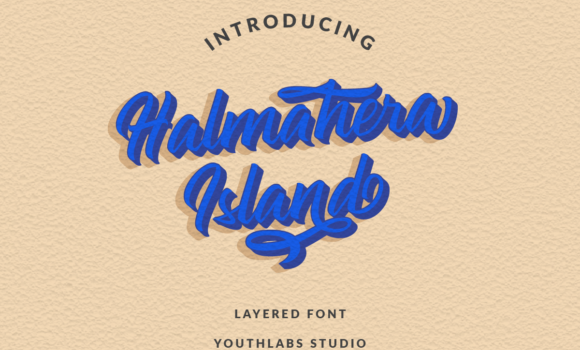
Halmahera Island Font
Introduction to Halmahera Island Font Have you ever stumbled upon an old, worn-out notebook in a thrift store, and the worn pages reveal a hidden treasure of handwritten notes and sketches? That’s the kind of magic that the Halmahera Island